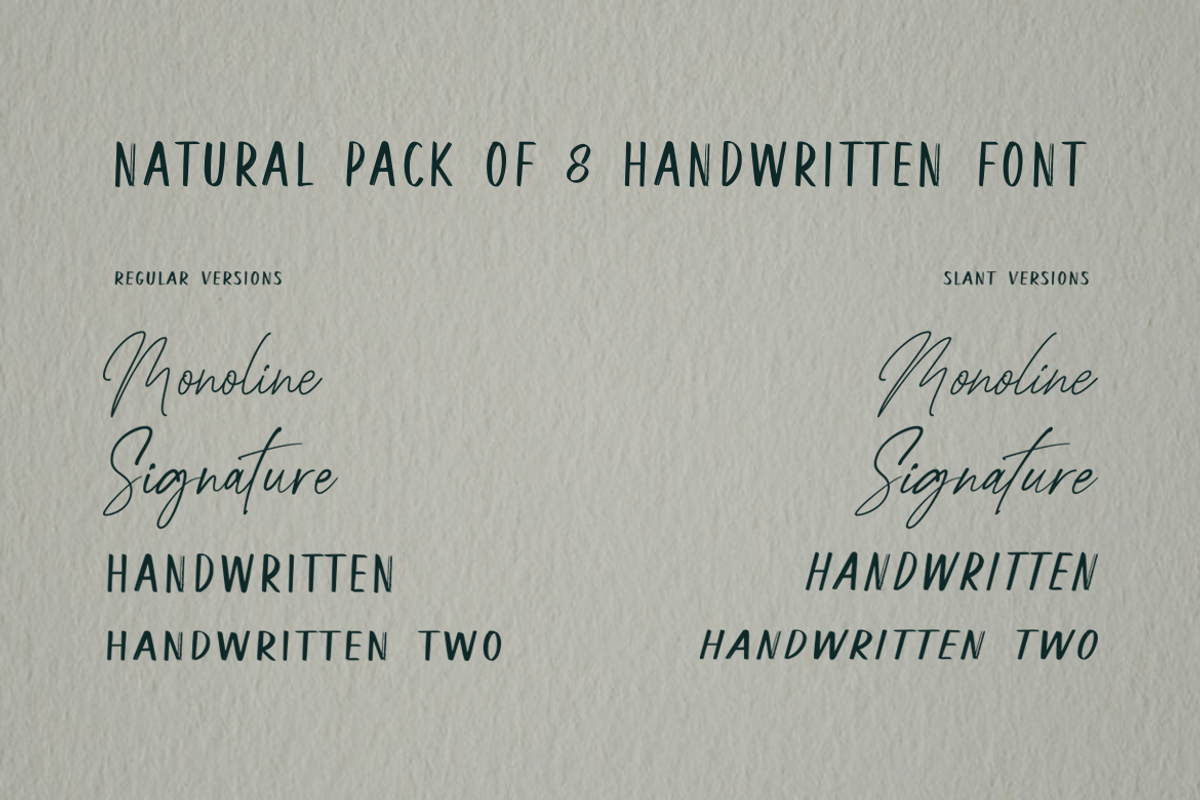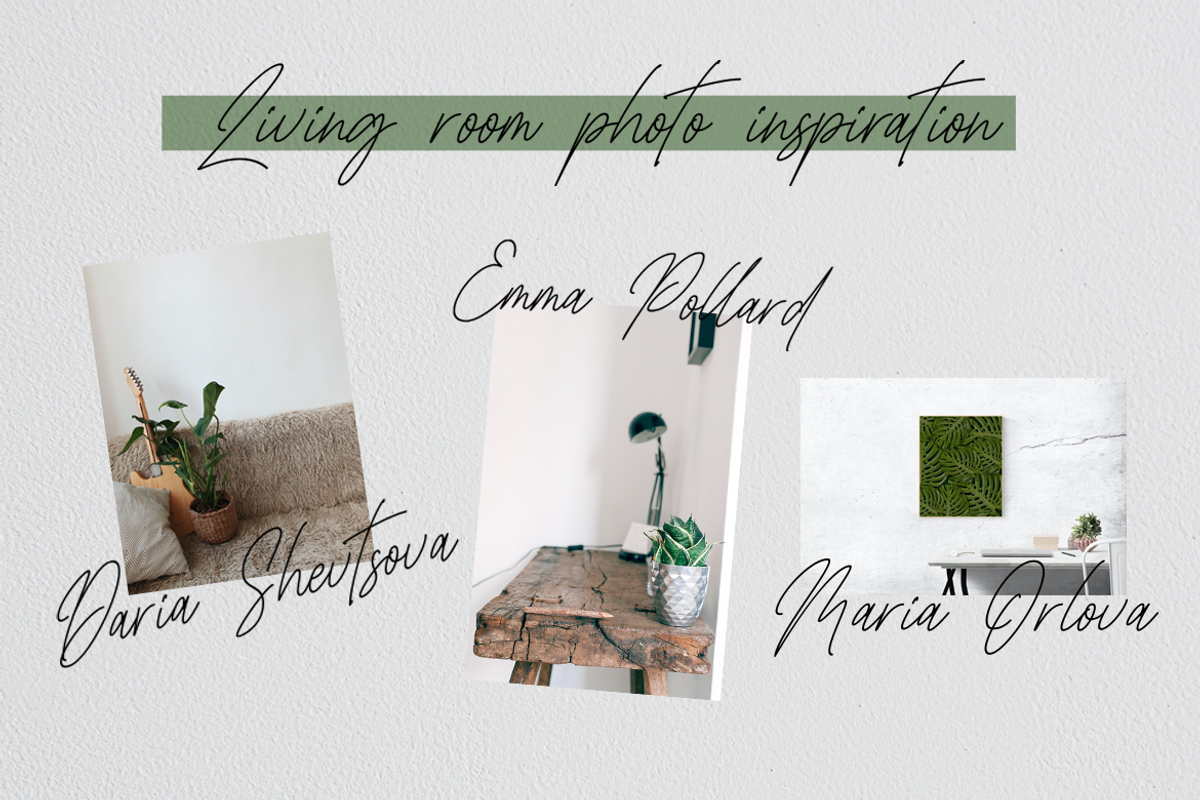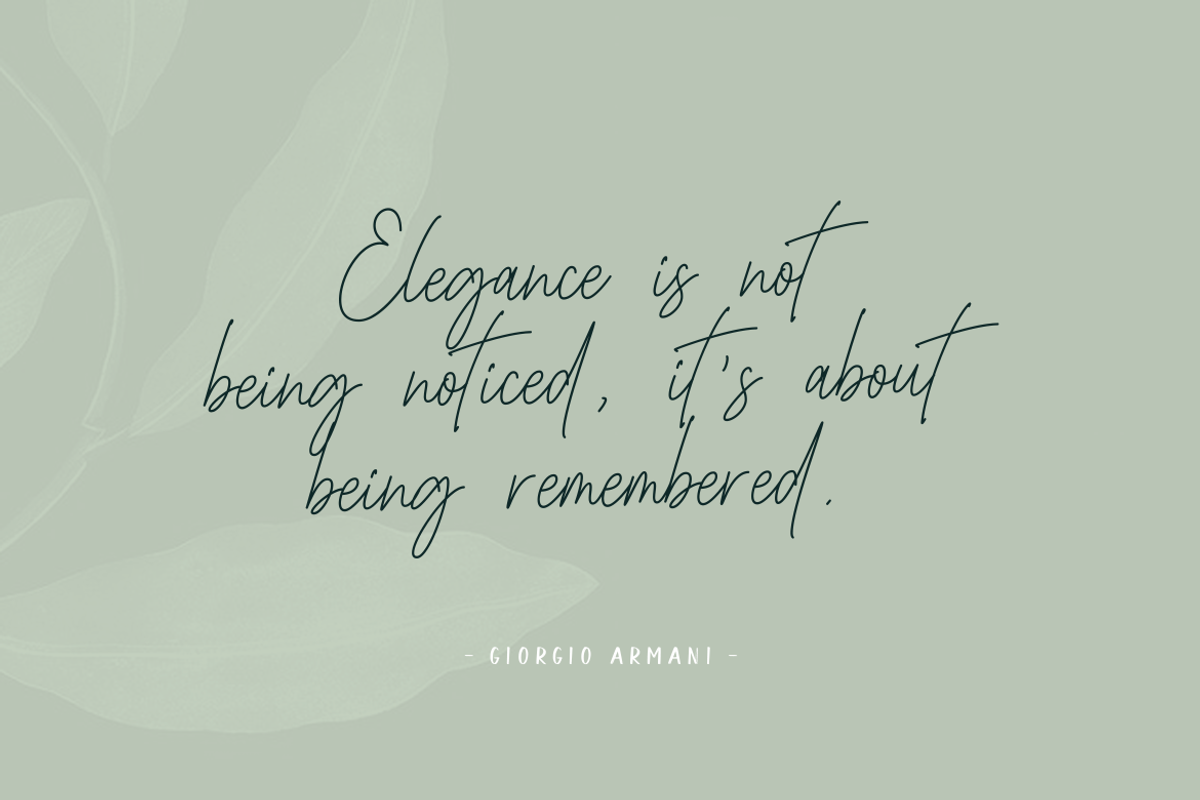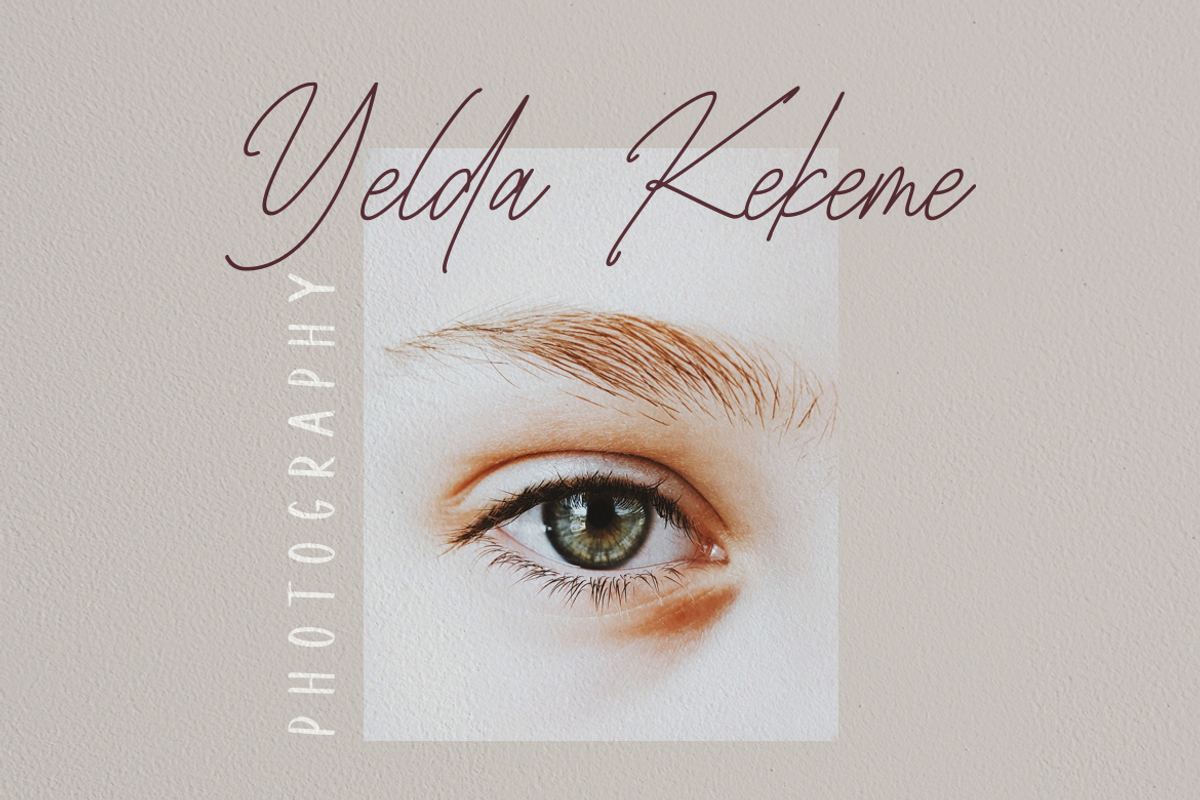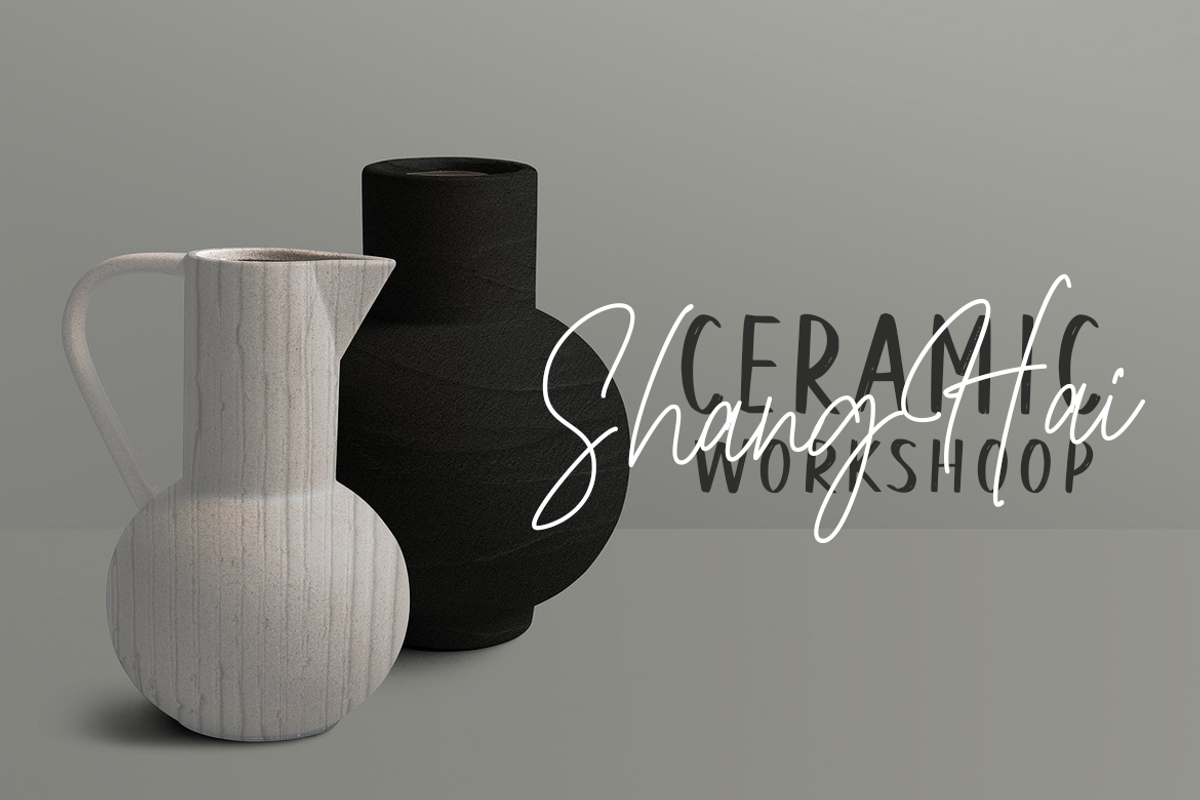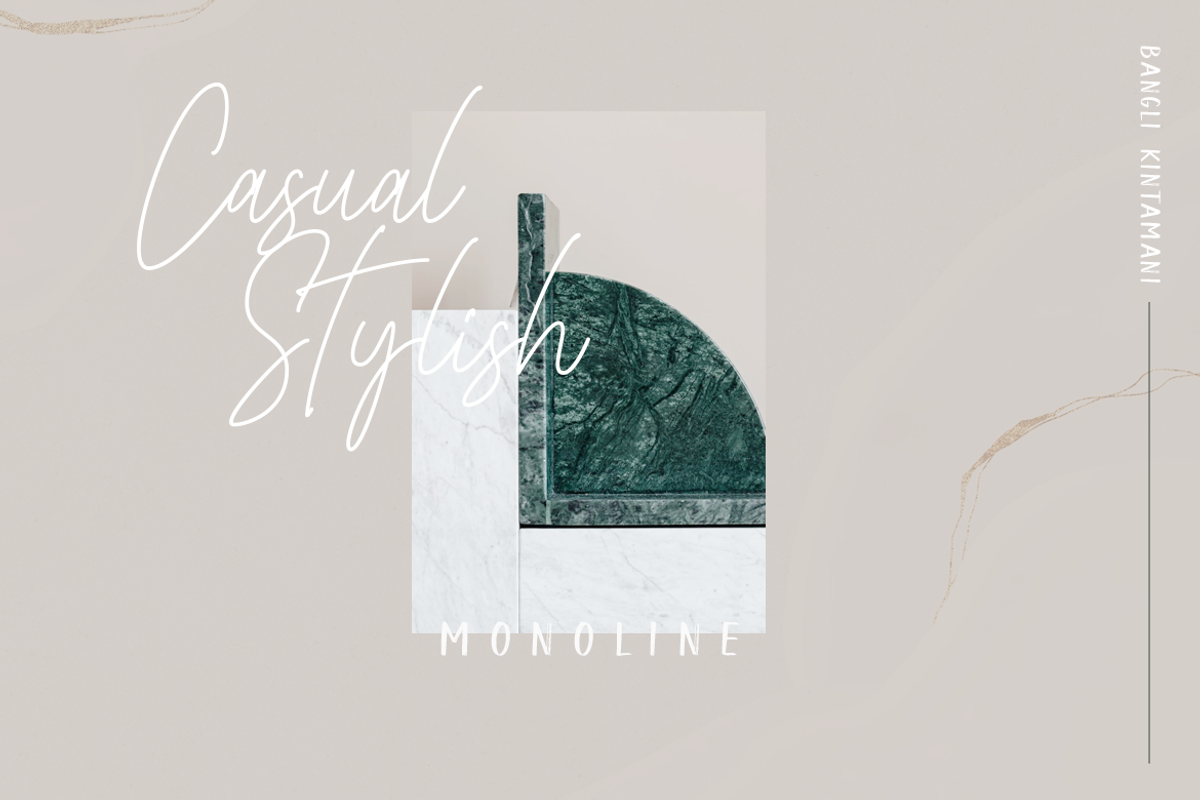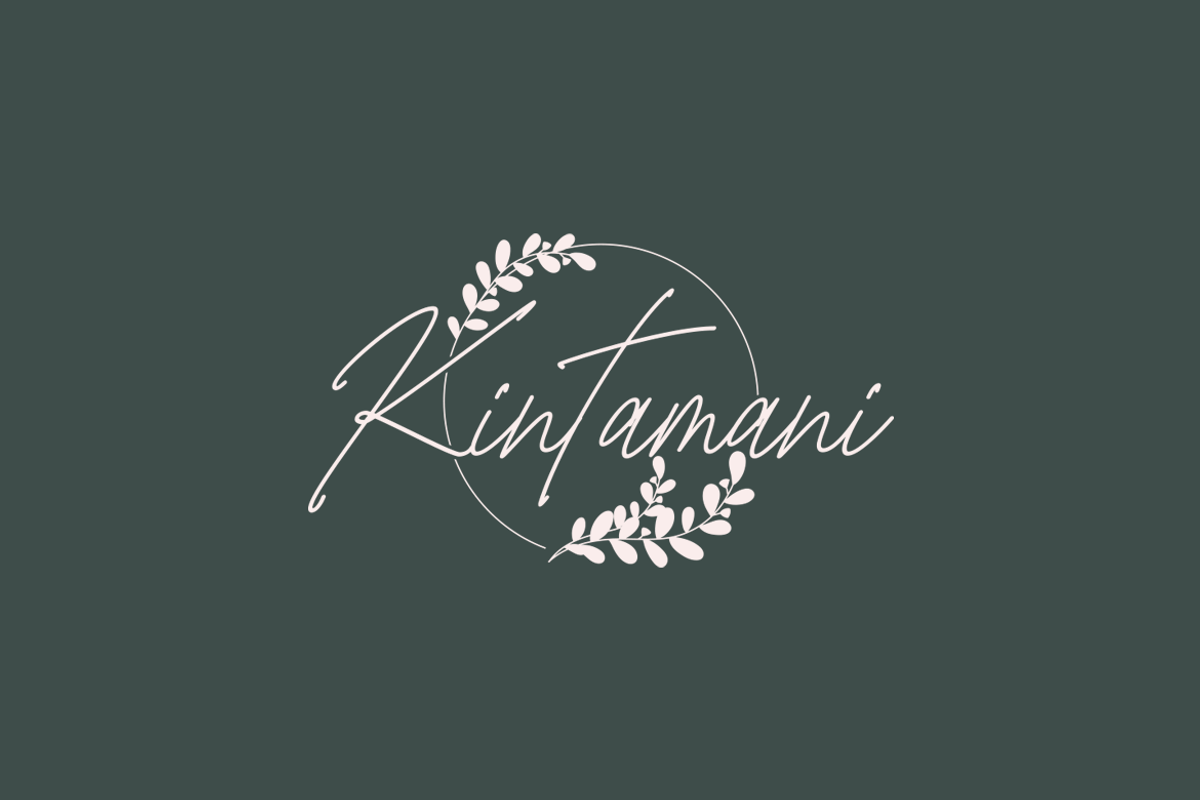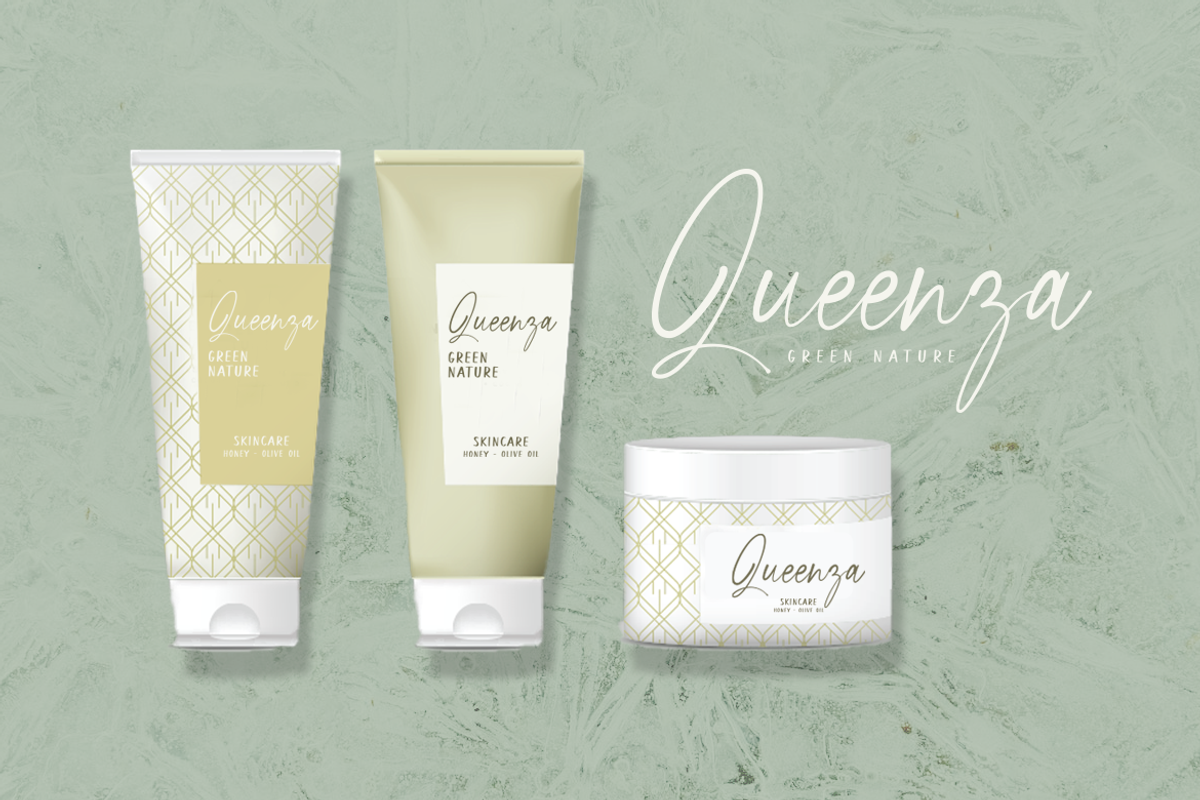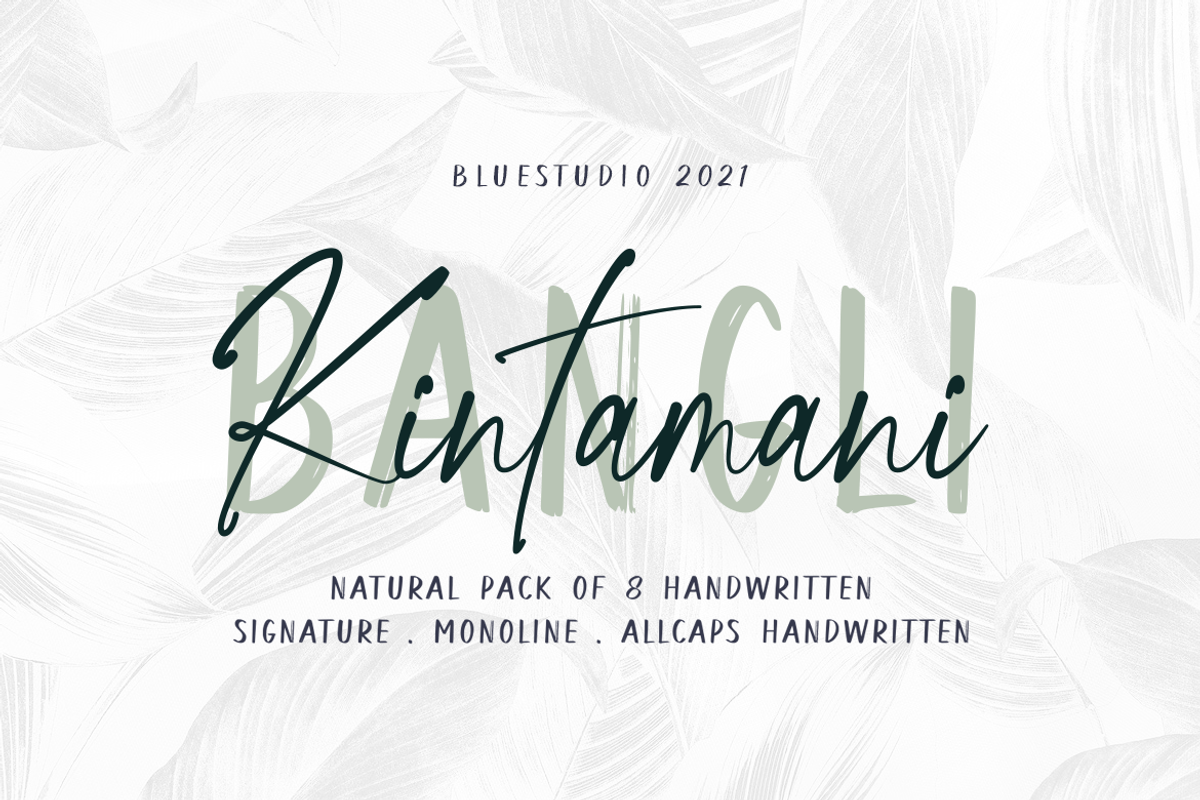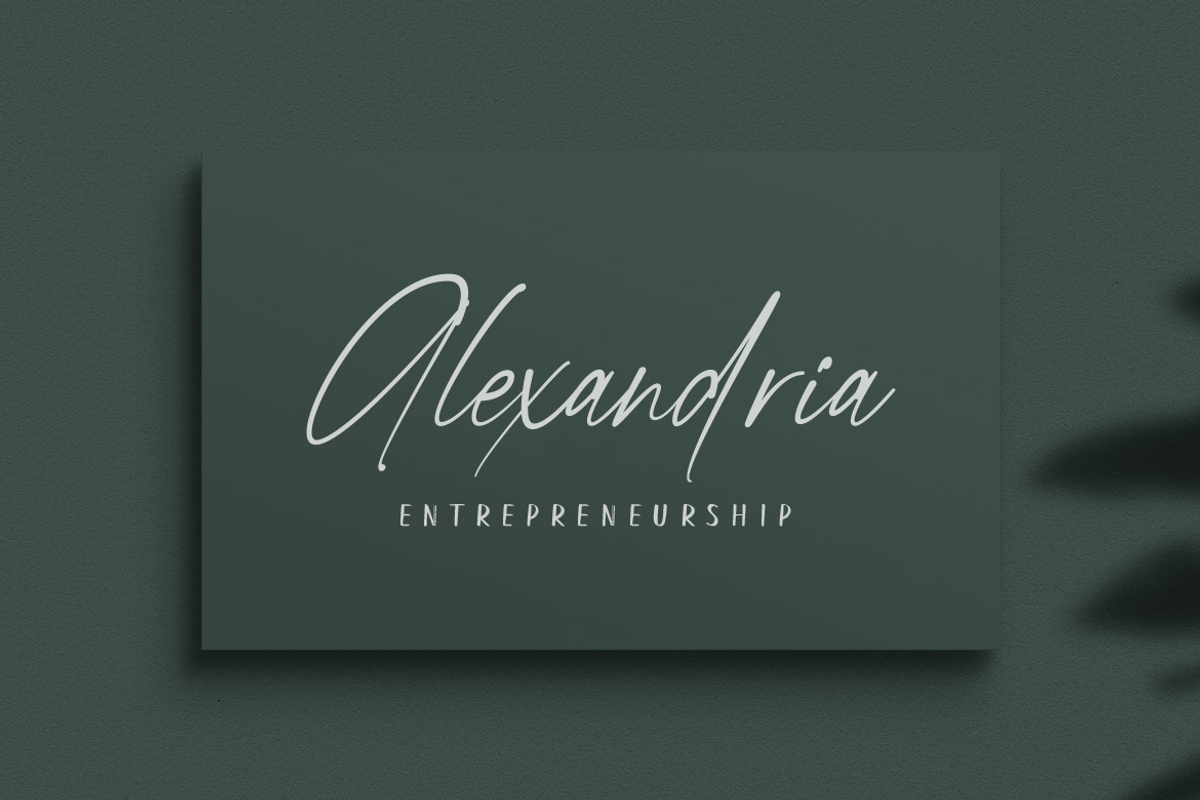
Bangli Kintamani 8 Handwritten Fonts
Bangli Kintamani is a handwritten 8 style font. It's perfect for creating beautiful font combinations for all your design projects!
Bangli Kintamani is perfect for all types of your business projects such as: logo design, business cards, greeting cards, magazines, newspapers, social media designs, watermarks and many more.